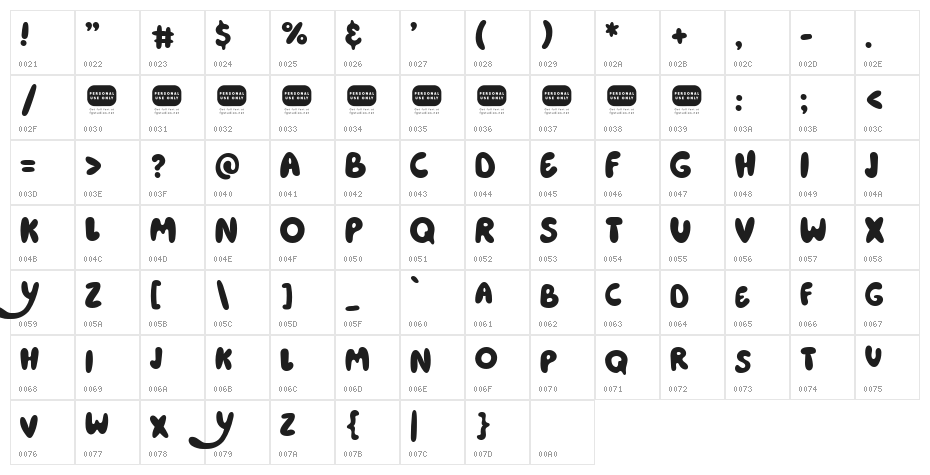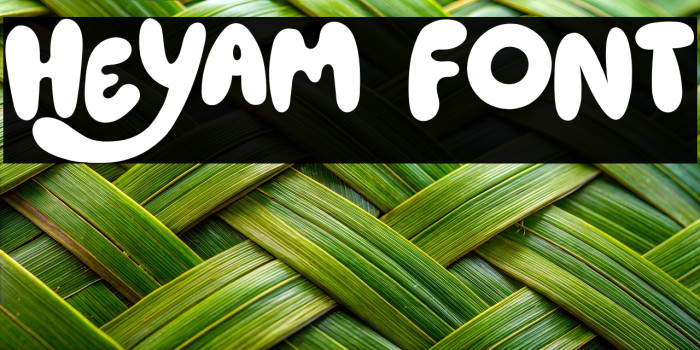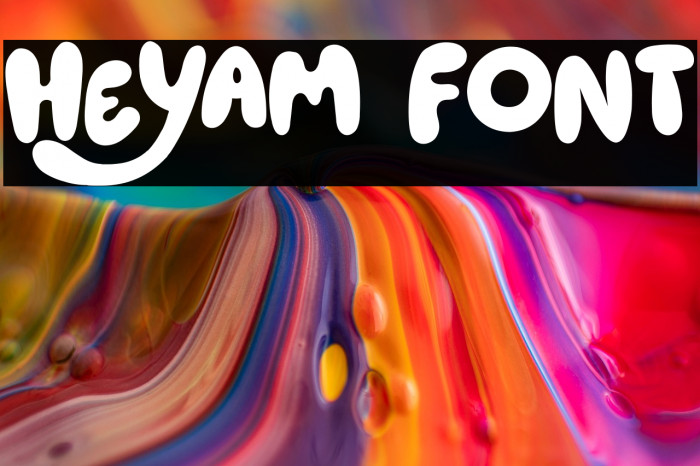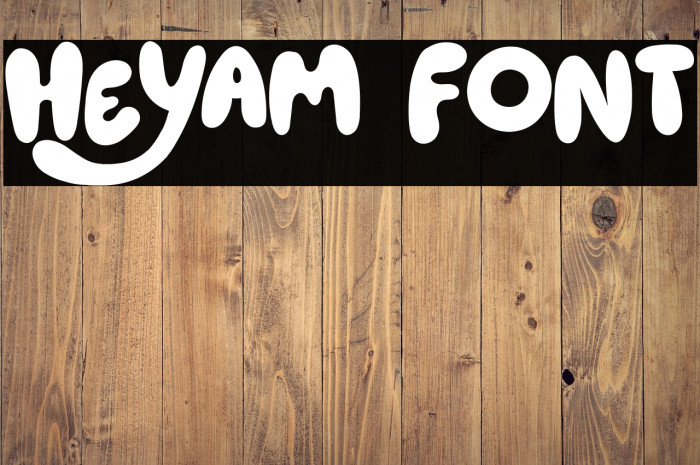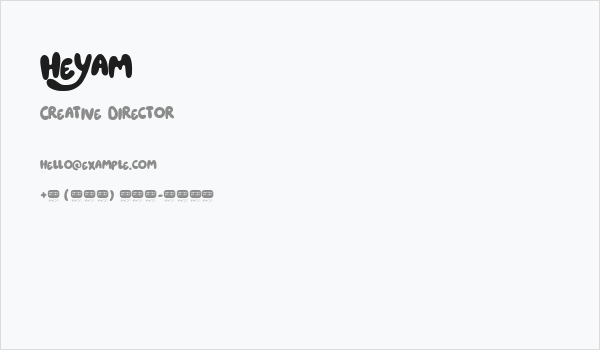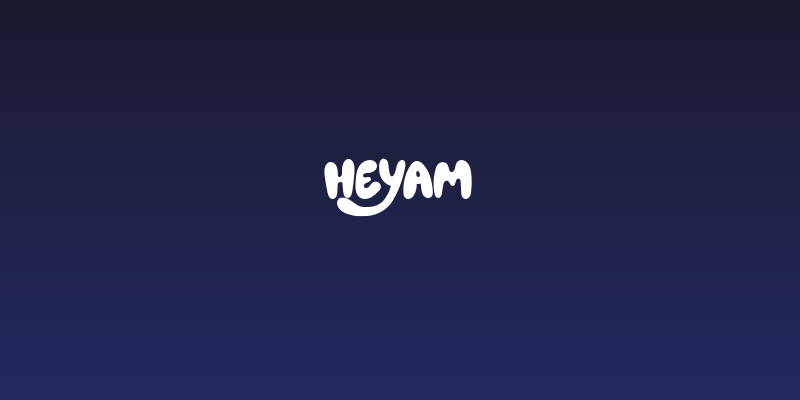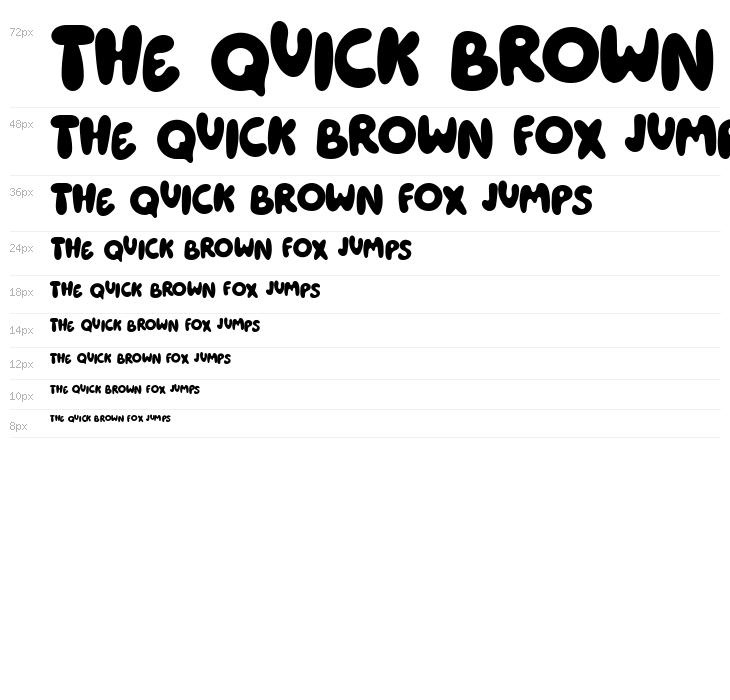
Heyam Font
Heyam Description
This font features a playful and bold design with rounded, thick strokes that give it a bubbly and friendly appearance. The characters are uniform in width, creating a cohesive look across both uppercase and lowercase letters. The style is reminiscent of hand-drawn or cartoonish fonts, making it ideal for projects that require a fun and approachable aesthetic. The boldness of the letters ensures high visibility, making it suitable for headlines or titles. The special characters maintain the same playful style, ensuring consistency throughout the font.
| Overall Style | Playful, Cartoonish |
| Proposed Projects | Ideal for children's books, playful branding, posters, and social media graphics. |